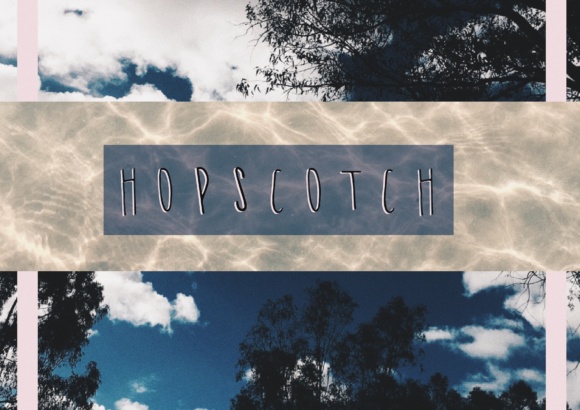
Hopscotch Font
About Hopscotch Font
Hopscotch is a thin, messy handwritten font! This handwritten script is ideal for friendly, jovial, and carefree designs.